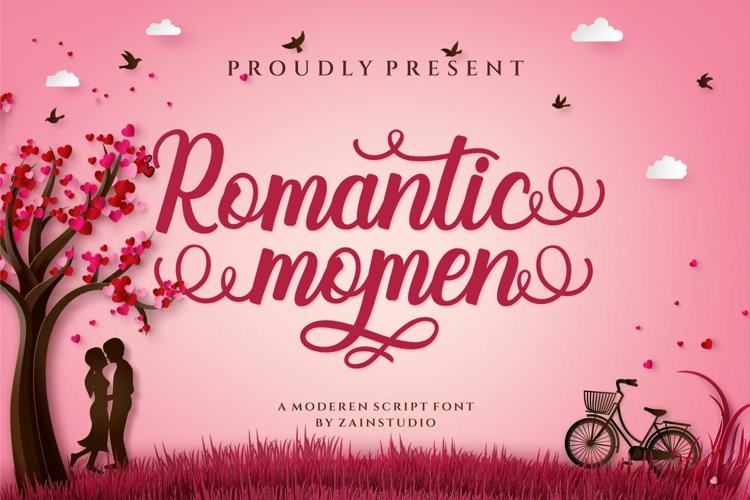
Romantic Momen is a modern calligraphy font, It is perfect for branding,logo, wedding invites, every other design which needs a handwritten romantic touch.
Decorative and handwritten or creative style script font for your new projects. With multi language support and lot of stylistic alternates.